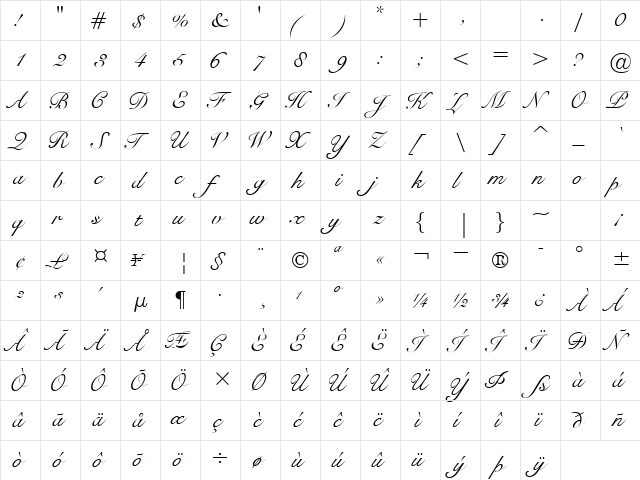
BravoScriptSSK Regular
Design Context for BravoScriptSSK Typeface
BravoScriptSSK flows with the natural rhythm of handwritten lettering, making it ideal for designs that call for warmth and personal expression.
Font Pairing: Combine BravoScriptSSK with a simple geometric sans for maximum contrast — the tension between flowing curves and clean structure is a classic typographic pairing.
Pro Tip: Pair BravoScriptSSK with a clean sans-serif for supporting text. The contrast between fluid script and geometric structure creates an elegant typographic hierarchy.